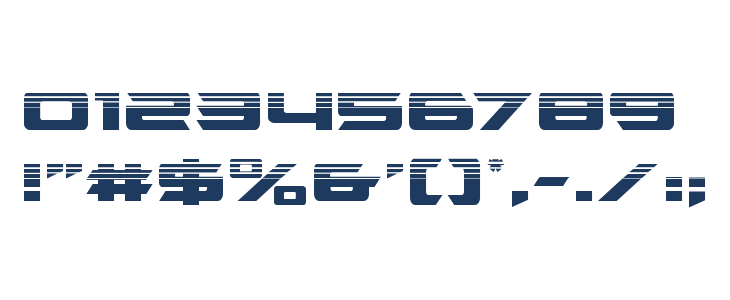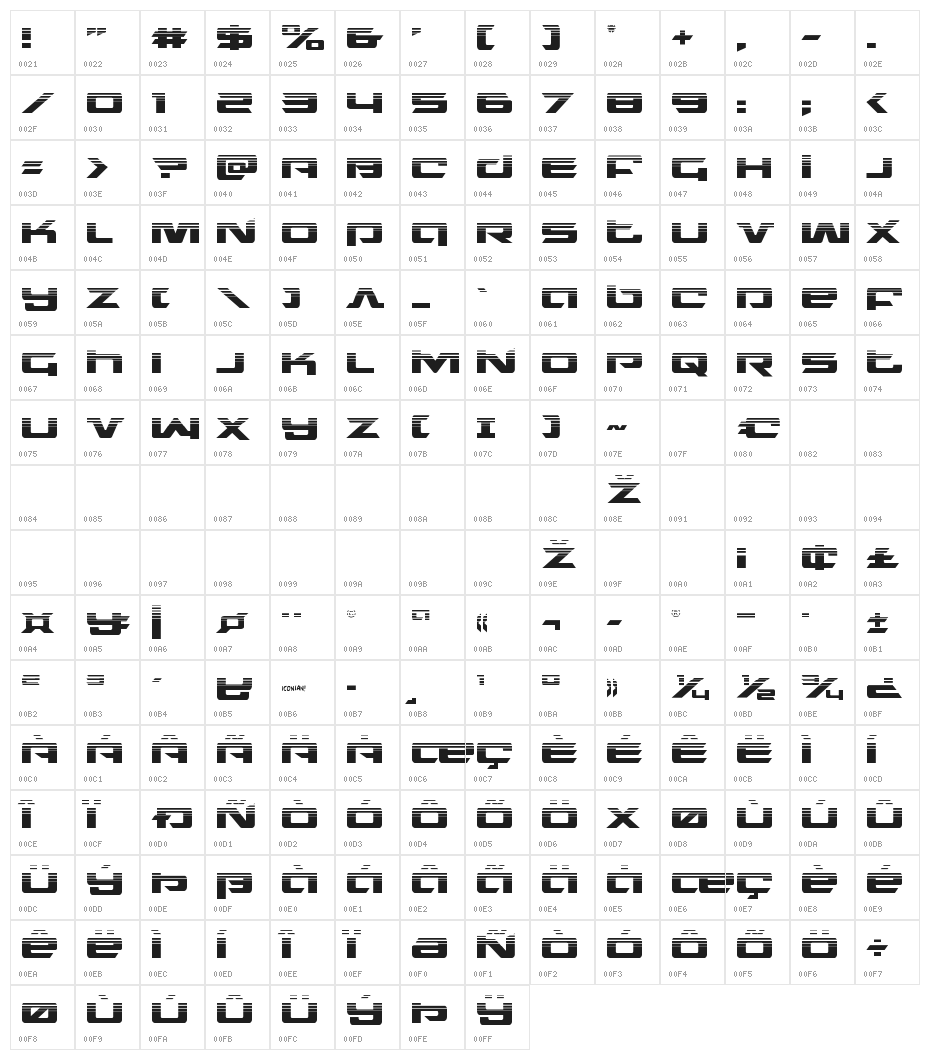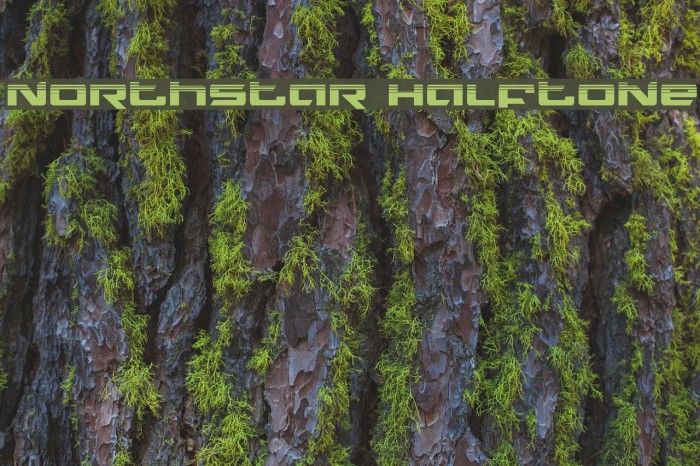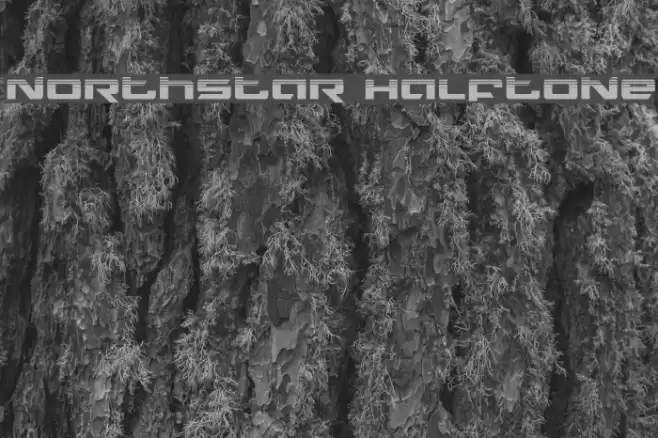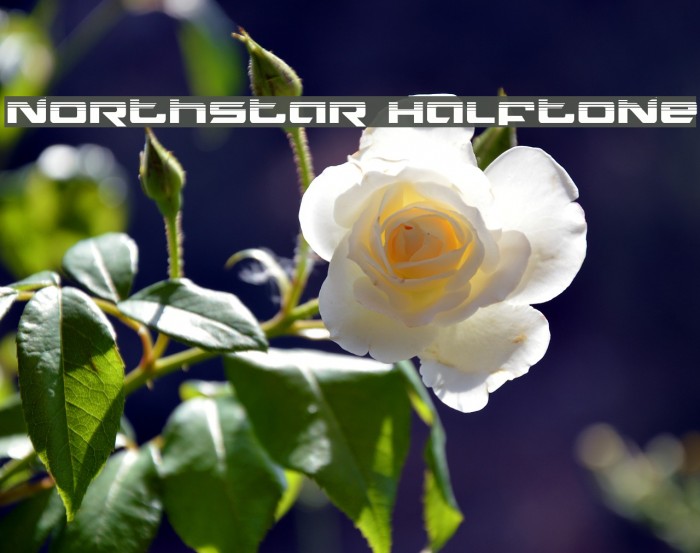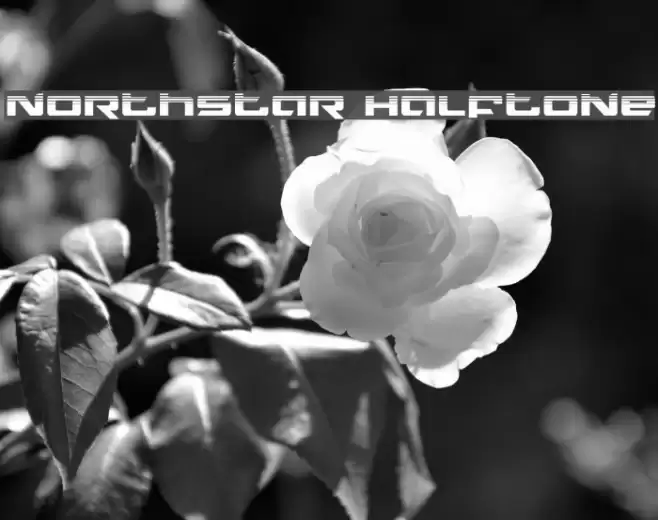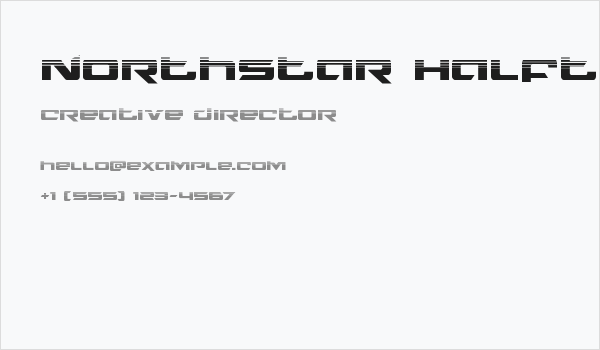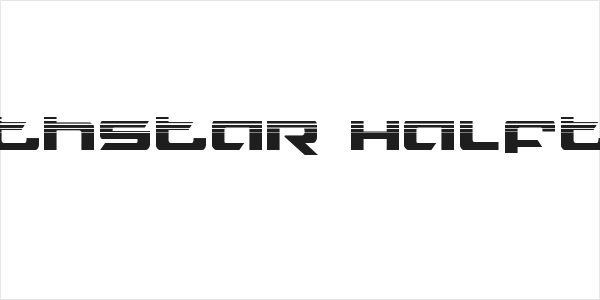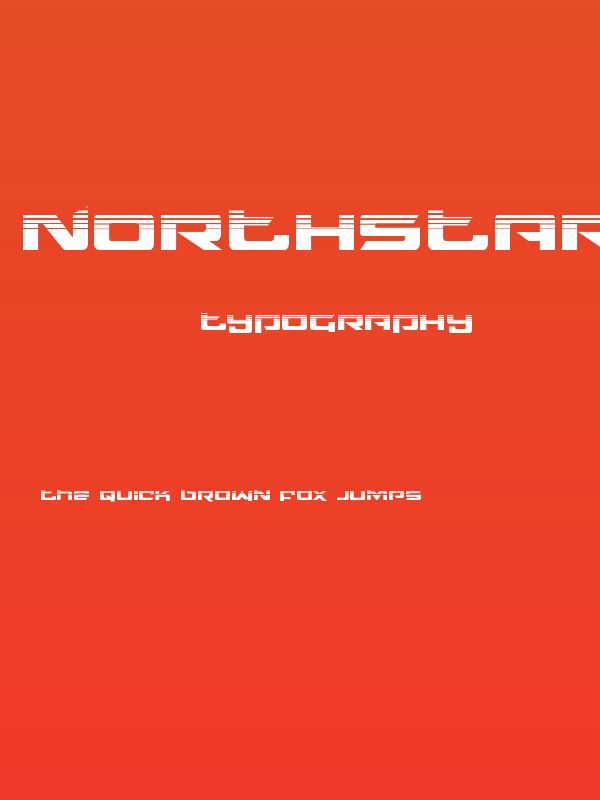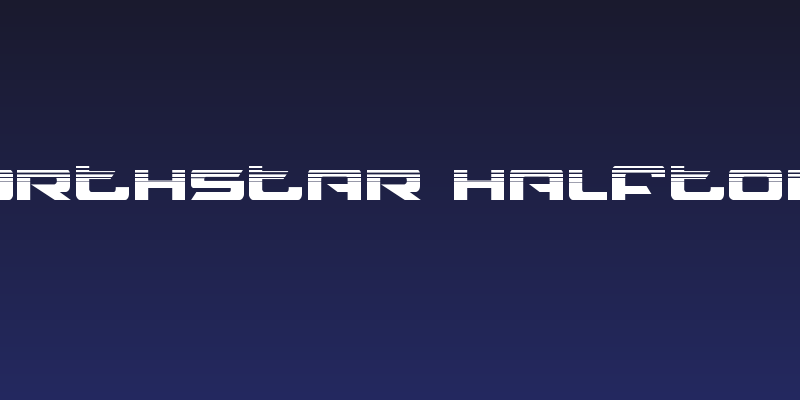
Northstar Halftone Font
Northstar Halftone Description
This font features a futuristic and bold design with a distinctive halftone effect. The characters are constructed with horizontal lines that create a sense of movement and dynamism. The uppercase and lowercase letters maintain a consistent style, with sharp angles and geometric shapes that contribute to its modern aesthetic. The numerals and special characters follow the same design principles, ensuring uniformity across all glyphs. This font's unique style makes it stand out, providing a visually striking appearance suitable for various creative applications.
| Proposed Projects | Ideal for sci-fi themed projects, video game titles, posters, and branding that requires a modern and edgy look. |